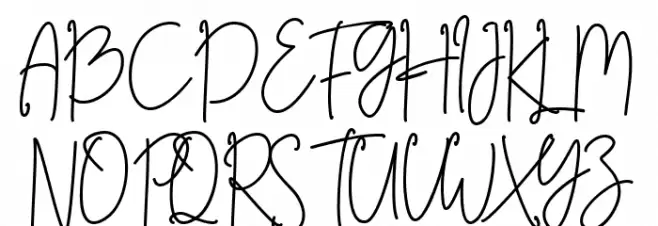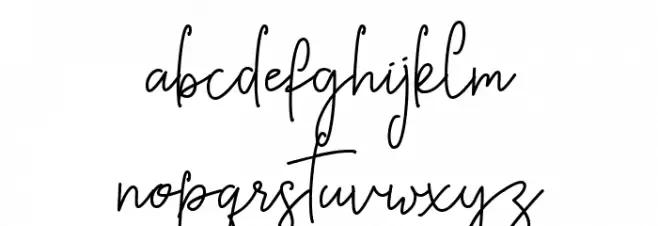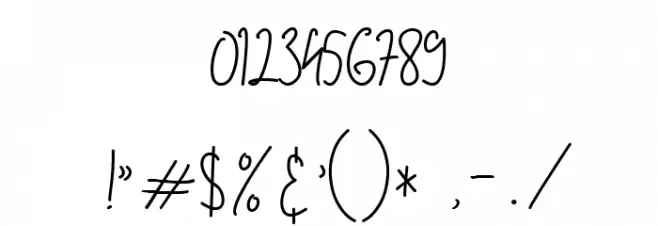
Allin Priska Regular
A playful and elegant handwritten script font with a flowing, cursive style.
Elegant handwritten script font.
- Proposed Projects: Invitations, greeting cards, personal branding.
- Overall Style: Decorative
- Use Case: Logos, Invitations